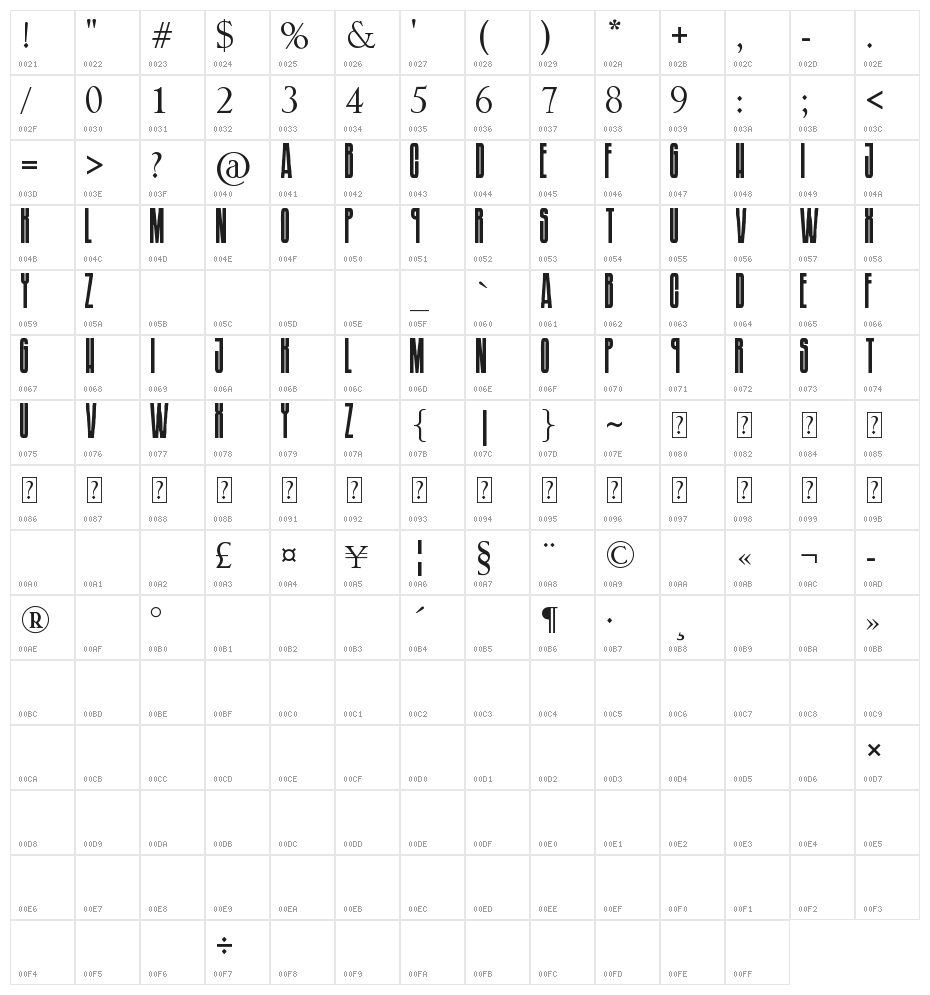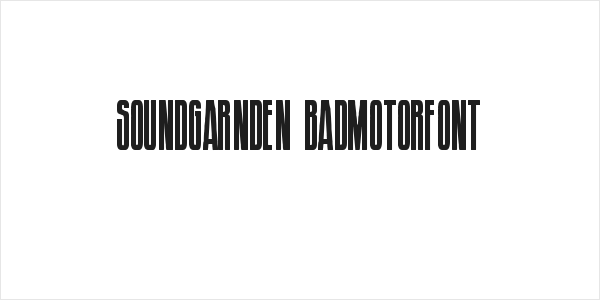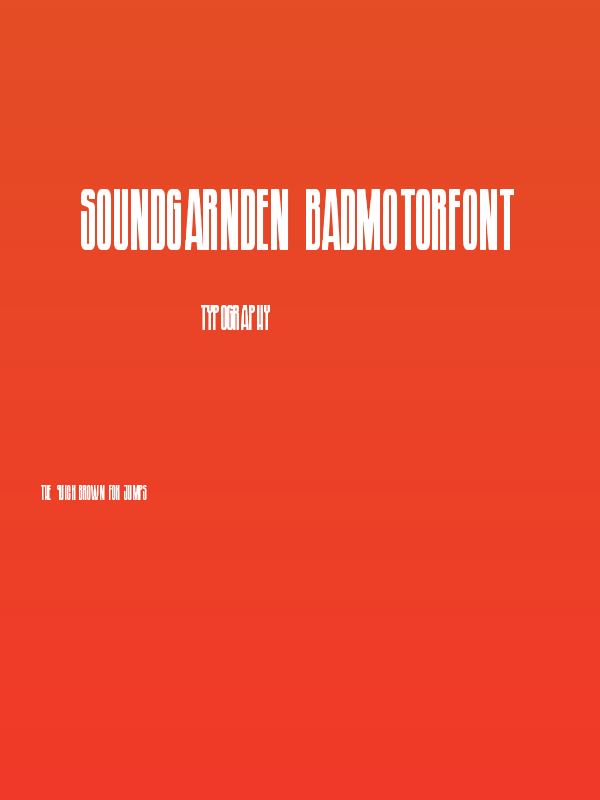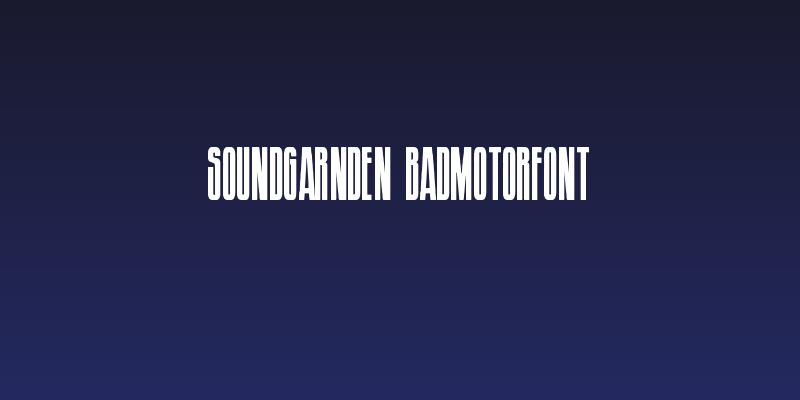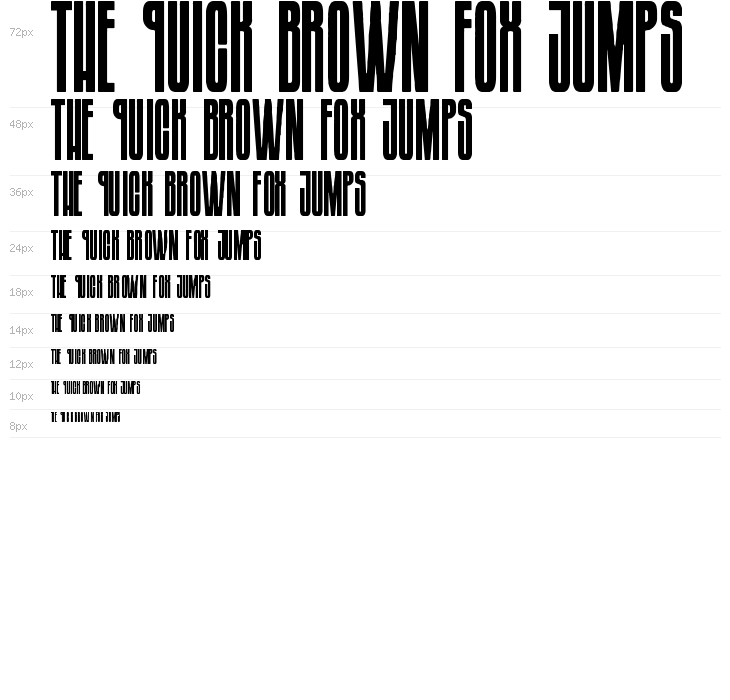
Soundgarnden Badmotorfont Font
Soundgarnden Badmotorfont Description
This font features a striking and bold design with elongated, narrow characters that create a dramatic and impactful visual presence. The uppercase letters are particularly tall and condensed, giving a sense of height and strength. The lowercase letters maintain a similar style, ensuring consistency across the typeface. The numerals are clear and distinct, matching the overall boldness of the font. Special characters are included, providing versatility for various design needs. This font's unique style makes it suitable for projects that require a strong and memorable typographic statement.
| Proposed Projects | Ideal for music album covers, posters, branding, and any project needing a bold statement. |